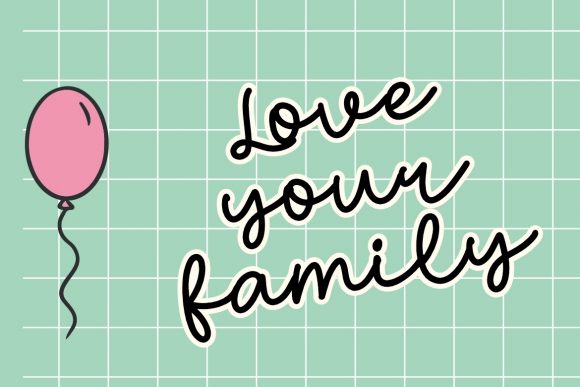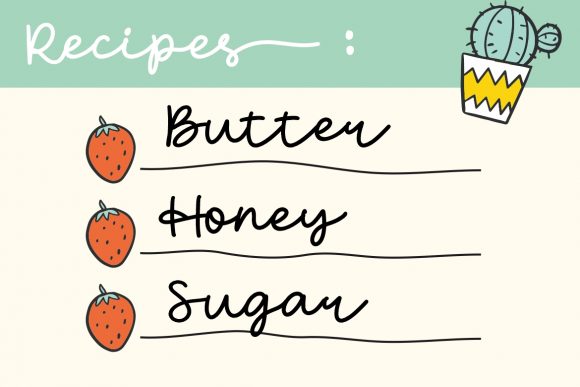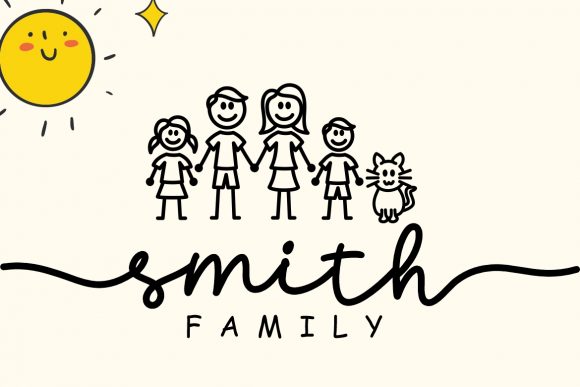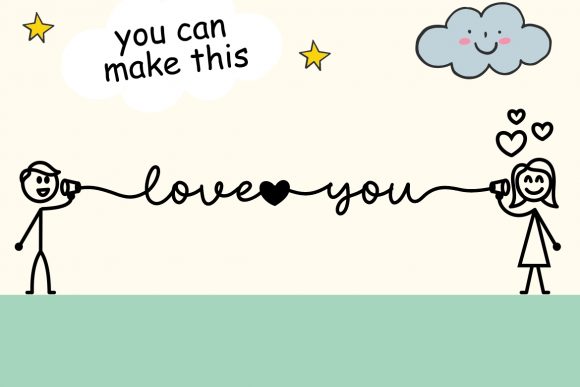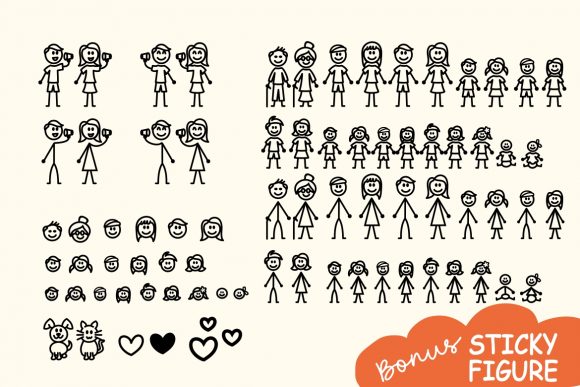
Introduction to Hello Cinta Font
Have you ever sat at your desk, surrounded by scraps of paper, ink-stained fingers, and a blank canvas staring back at you? The pressure to create something beautiful, something that will capture the essence of your creative vision, can be overwhelming. But what if you had the perfect tool to guide you through the process? Enter the Hello Cinta Font, a stunning and elegant script font that’s sure to elevate any design project.
As a designer, you know the importance of having a high-quality design resource at your fingertips. The Hello Cinta Font is just that – a valuable addition to any creative project that requires a touch of sophistication and whimsy. With its flowing lines and delicate curves, this font is perfect for creating a transparent background that lets your message shine through. Whether you’re working on a wedding invitation, a business card, or a simple greeting card, the Hello Cinta Font is sure to add a handwritten touch that will make your design stand out.
Key Features of Hello Cinta Font
- High-quality font with a transparent background, ideal for creative projects that require a modern and sleek design.
- Features a unique and stylish design that is perfect for branding, logos, and other creative projects.
- Perfect for designers and artists working on creative projects, including digital art, graphic design, and typography.
- Includes a comprehensive character set, including uppercase and lowercase letters, numbers, and special characters.
Honest Review: Hello Cinta Font
I recently had the chance to work with the Hello Cinta Font, and I must say it’s been a delightful experience. This font is a high-quality design resource that’s perfect for any creative project.
One of the standout features of the Hello Cinta Font is its transparent background, which makes it easy to use in various design contexts. The font itself is beautiful, with a unique and playful style that’s sure to add some personality to your work.
Here are some of the things that work well with the Hello Cinta Font:
- High-quality design: The font is well-crafted and looks great on both digital and print materials.
- Easy to use: The transparent background makes it simple to layer the font over other design elements.
However, I did encounter a few limitations while using the font:
- Not suitable for all designs: The font’s playful style may not be the best fit for more formal or corporate designs.
- May require adjustments: Depending on the design context, you may need to adjust the font size or style to get the desired effect.
Overall, I’m very impressed with the Hello Cinta Font. It’s a great design resource that’s perfect for creative projects. With its high-quality design and transparent background, it’s easy to see why it’s a popular choice among designers.
Hello Cinta Font
Hello Cinta Font is a high-quality design resource ideal for creative projects. This font features a transparent background, making it easy to customize and integrate into various designs.
Tips for Getting the Most Out of Hello Cinta Font
To get the most out of Hello Cinta Font, experiment with different font sizes, colors, and combinations. You can also use the font in conjunction with other design elements to create a unique and eye-catching design.
Hello Cinta Font is ideal for a variety of creative projects, including branding, marketing materials, and digital graphics. Its high-quality design and transparent background make it a versatile resource for designers.
Alternatives to Hello Cinta Font
The Great Vibes Font is a beautiful, high-quality script font that’s perfect for creative projects and design resources. It’s ideal for use on a transparent background, adding a touch of elegance to your designs. When to use: Wedding invitations, branding materials, and creative projects that require a sophisticated look. Compared to Hello Cinta Font, Great Vibes Font has a more refined and polished feel, making it suitable for formal and professional applications.